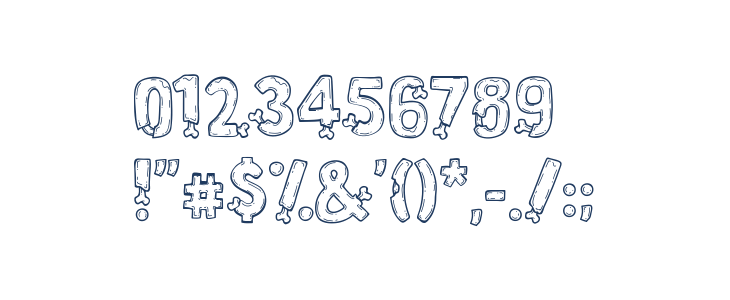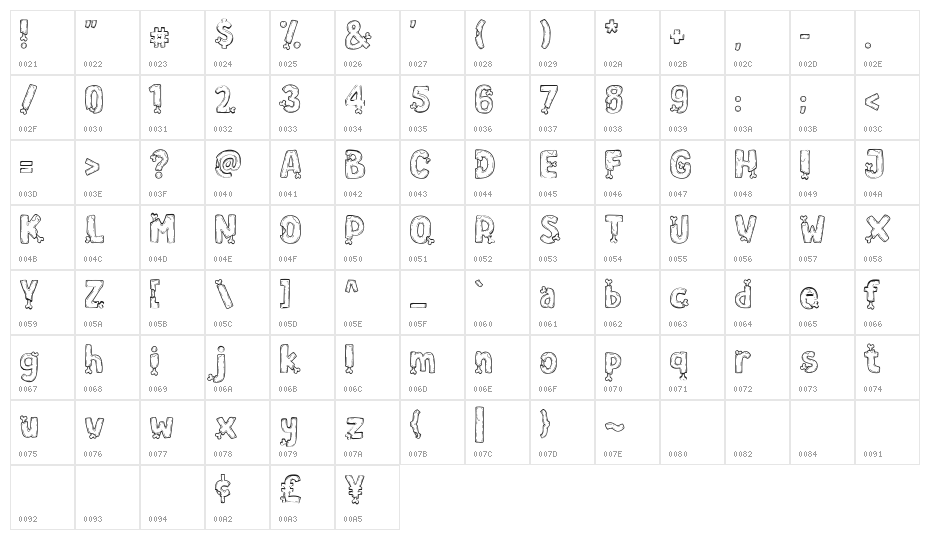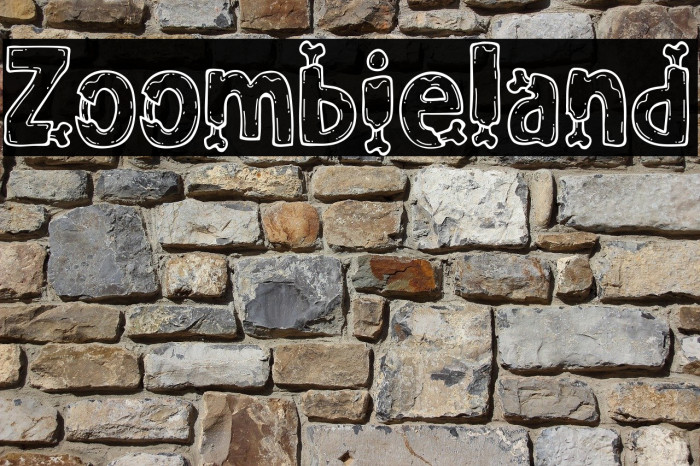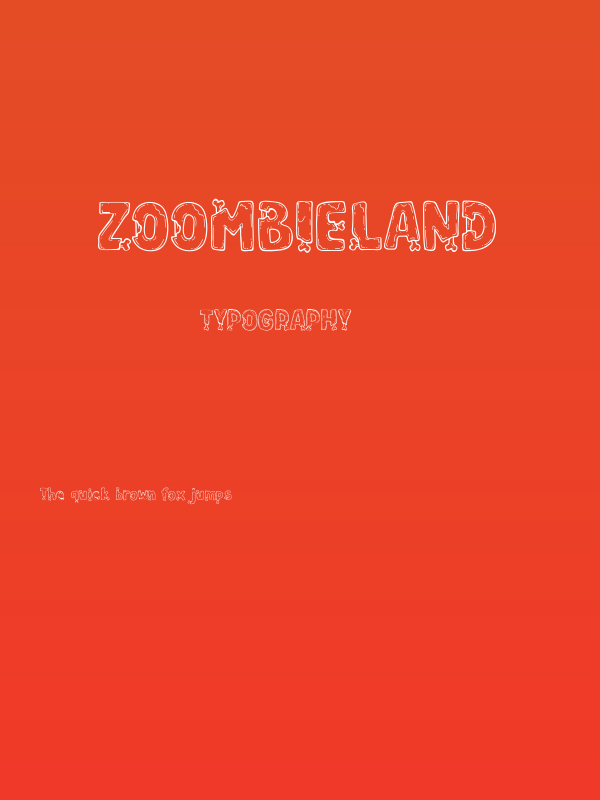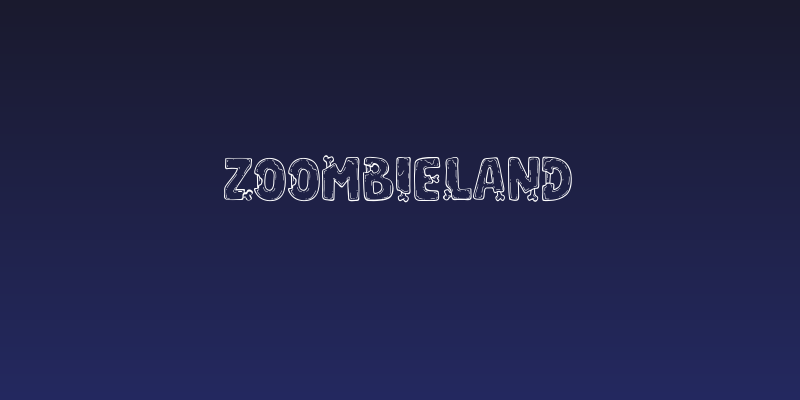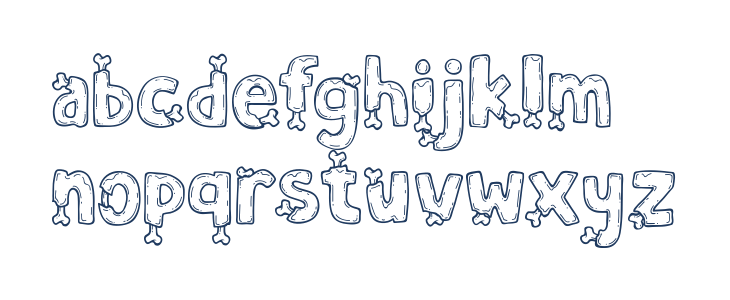
Zoombieland Font
Zoombieland Description
This playful and quirky font features a unique design with bone-like extensions on each character, giving it a fun and spooky appearance. The letters are bold and have a hand-drawn feel, with irregular outlines that add to its whimsical charm. The font maintains a consistent style across uppercase, lowercase, numbers, and special characters, making it versatile for various creative projects. Its distinct look is perfect for Halloween-themed designs, children's books, or any project that requires a touch of humor and creativity.
| Proposed Projects | Ideal for Halloween invitations, children's book covers, comic strips, and playful branding. |